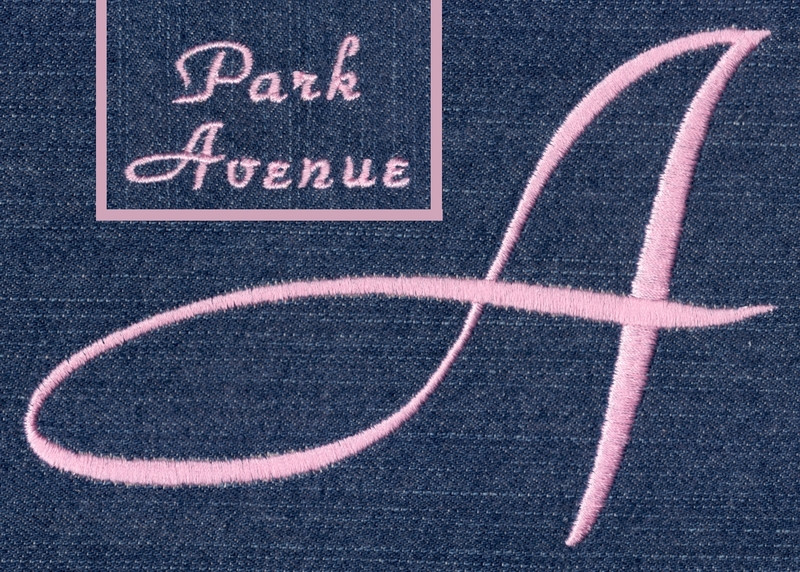
377 Park Avenue Satin Font
Park Avenue Satin Font comes in 0.5", 1", 1.5", 2", 2.5", 3", 3.5" and 4" heights; set height is based on the capital "A". All sizes are finished in Satin Stitch and all sizes are included in purchase price. Includes uppercase letters, lowercase letters, numbers and four punctuation marks. Capital letters are wider than they are tall; Capital and a few lowercase letters in the 3", 3.5" and 4" sets exceed standard 4x4 hoop limitations.